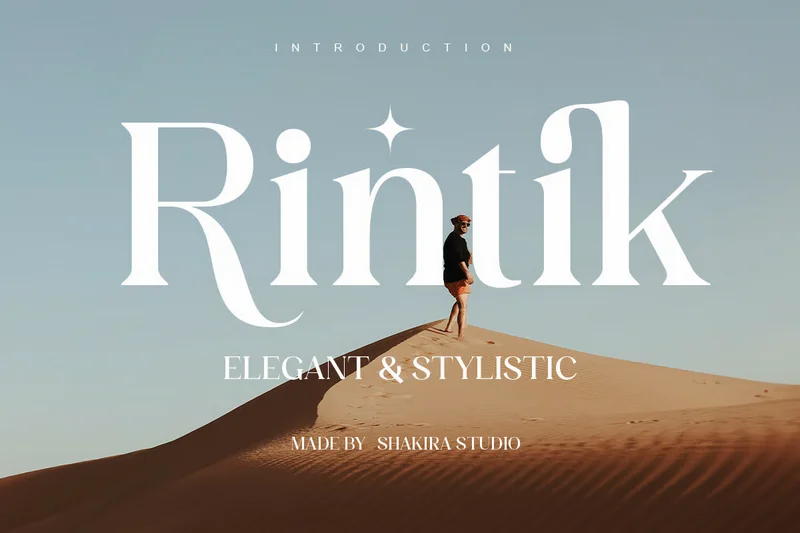
Rintik – Modern Elegant Stylistic Logo Serif
Rintik is an elegant serif typeface that combines clean modern shapes with stylish editorial details. With smooth contrast and subtle curves, it’s perfect for branding, packaging, lifestyle magazines, photography logos, and fashion projects. Rintik embodies the balance between simplicity and sophistication — a true designer’s essential.
Regular & Italic
Elegant Alternates & Ligatures
Uppercase, Lowercase, Numerals
Perfect For: Editorial design, magazine covers, photography branding, product packaging, and modern logo creation.